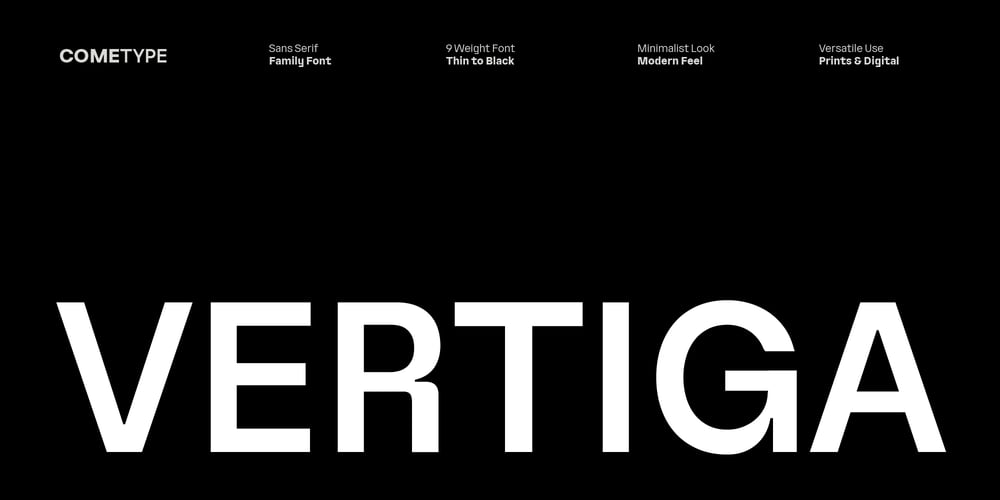
Vertiga
Vertiga font
Vertiga Font Family was designed by abdul artega and published by Come Type. Vertiga contains 9 styles and family package options. Vertiga is a sleek and modern sans serif font crafted for ultimate versatility. With 9 weights, from delicate Thin to powerful Black, it delivers a perfect blend of elegance and functionality. Its refined curves, precise letterforms, and contemporary appeal make it an exceptional choice for branding, editorial layouts, web typography, and beyond. Whether you’re aiming for a clean, minimalist aesthetic or a bold statement, Vertiga effortlessly adapts, bringing sophistication and impact to every design.